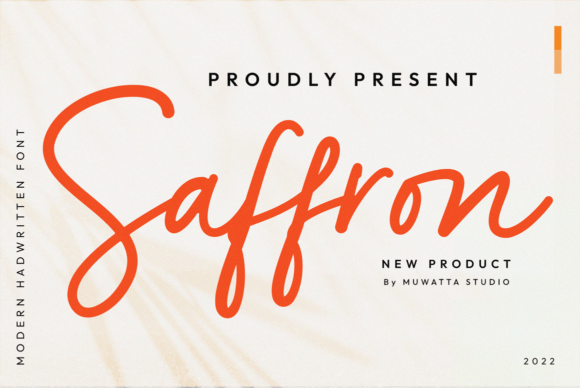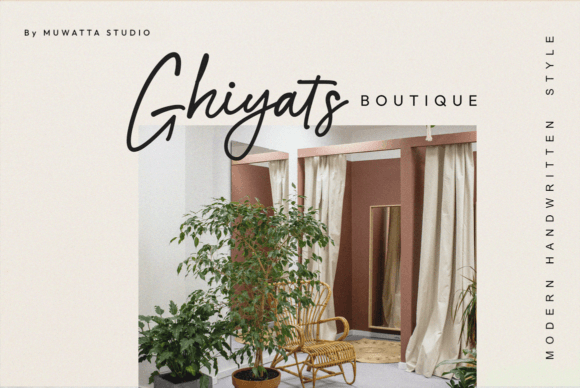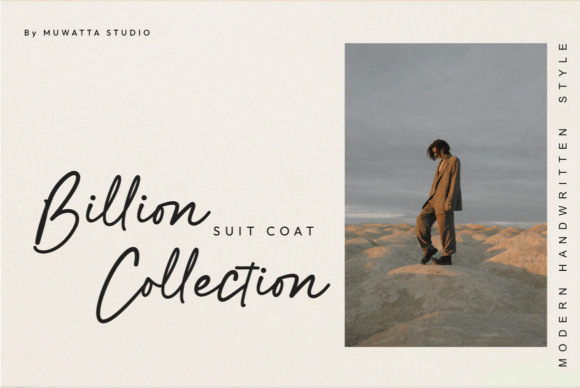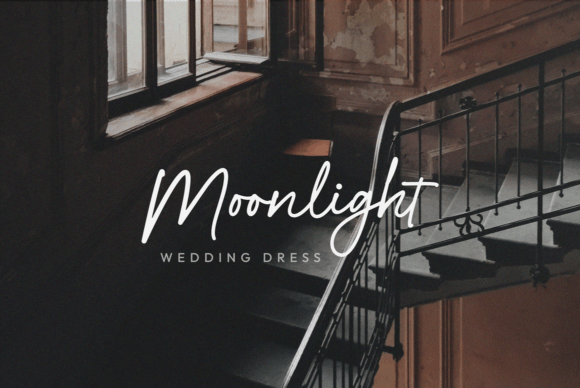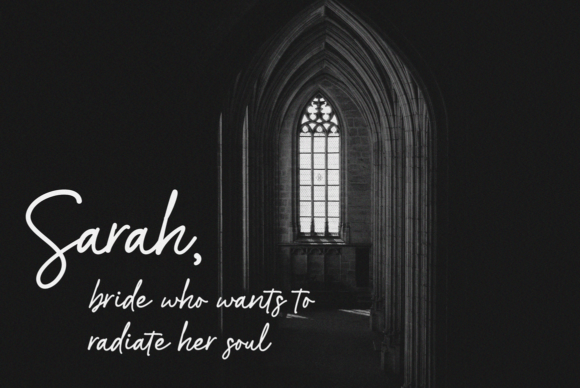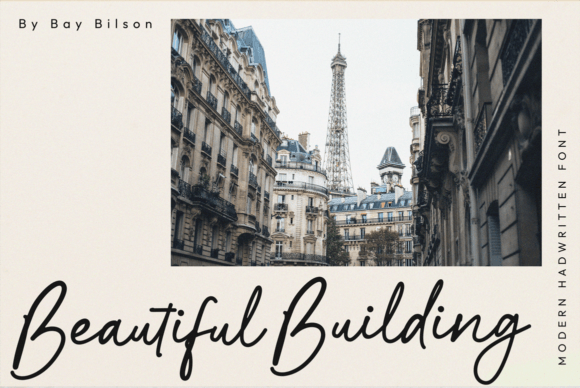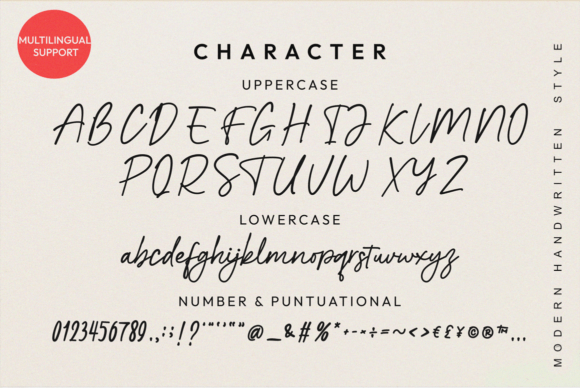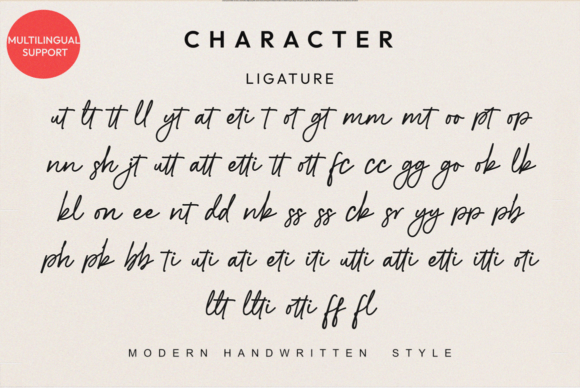
Saffron Font
Add Boldness and Daring Style with Saffron Font
The Saffron font is designed with bold and daring nuances that allow users to convey strength and confidence through their designs. Its dynamic and powerful style makes it perfect for creatives who want to make a strong statement. Whether you’re designing brand logos, invitations, Instagram content, marketing materials, web designs, or posters, Saffron adds toughness and impact.
Perfect for Brand Logos, Invitations, and Marketing
The Saffron font fits a wide variety of creative projects including corporate branding, event invitations, social media graphics, promotional campaigns, and digital or print advertising. Its bold style commands attention and helps communicate your message clearly and confidently.
A Handwritten Script with Strength and Personality
Each character in the Saffron font is crafted to balance boldness with readability. The font’s striking strokes and confident shapes give your text a unique personality, making it stand out in logos, headlines, quotes, and decorative designs.
While visually bold, the Saffron font maintains excellent readability at various sizes. Whether used for large titles or smaller text elements, it offers clarity and aesthetic appeal, making it a versatile choice for many design projects.
Make Your Designs Stand Out with Confidence